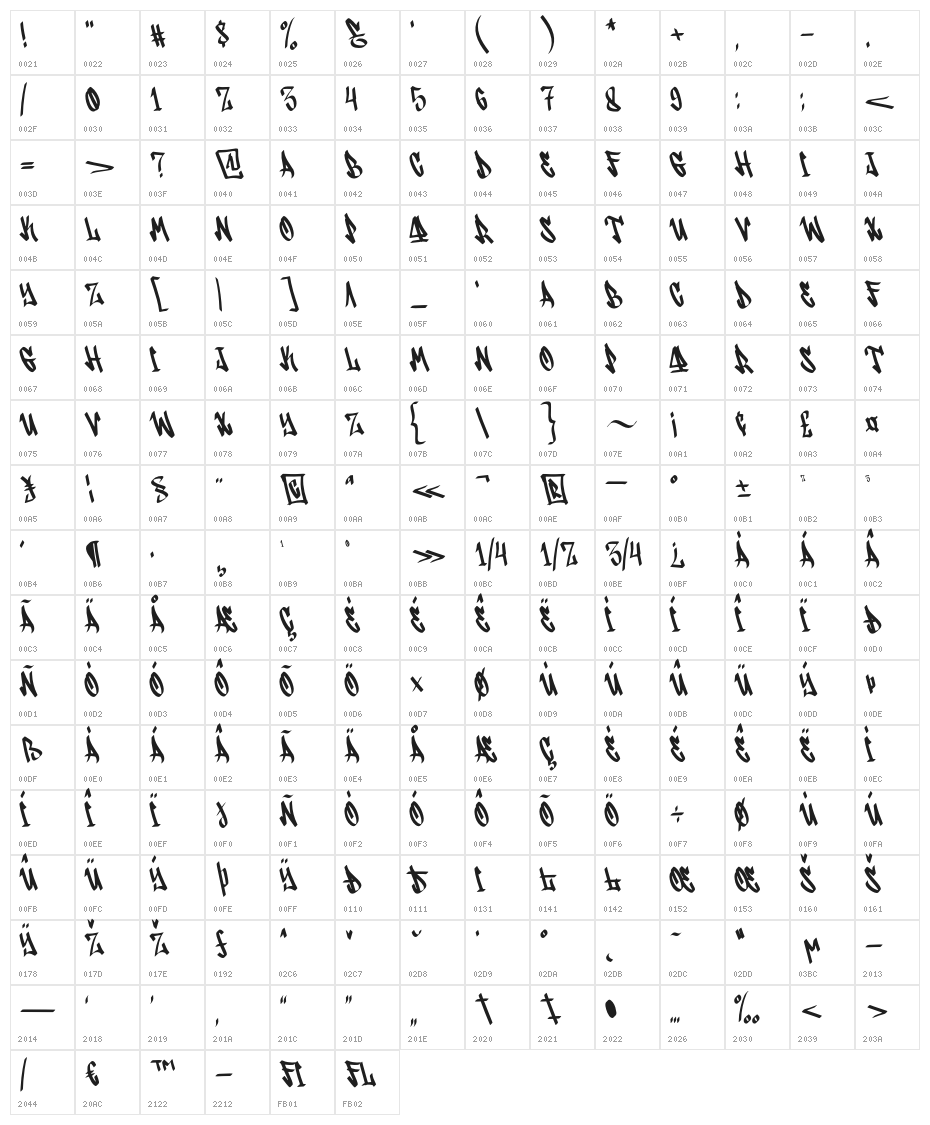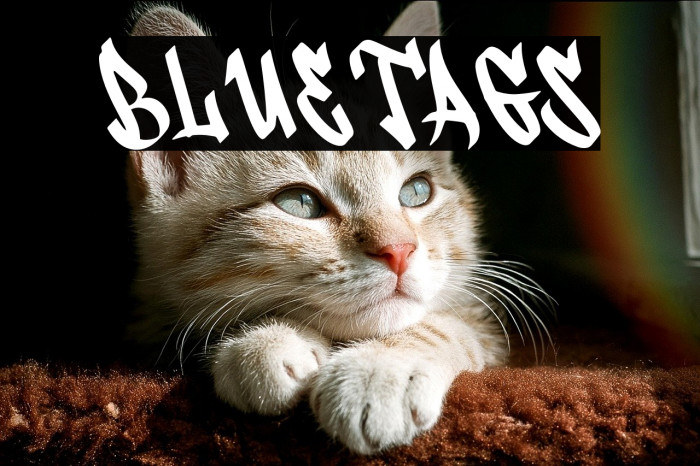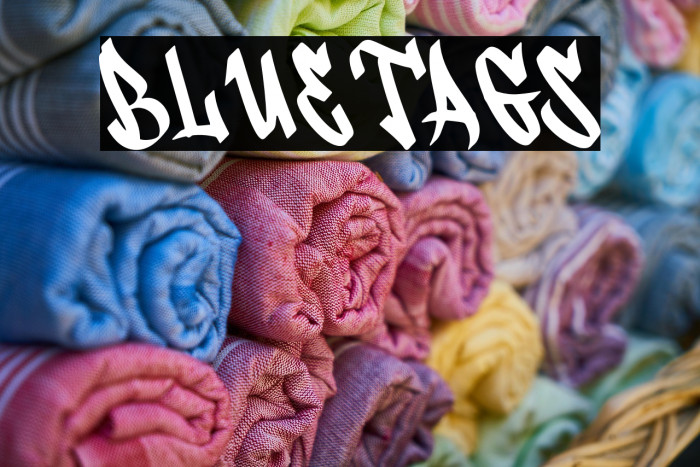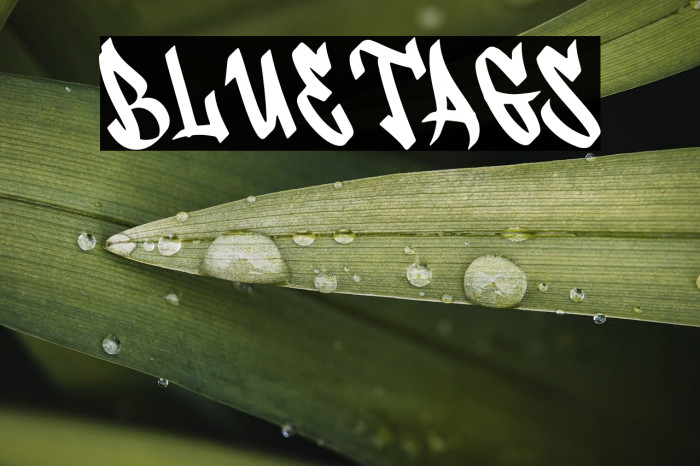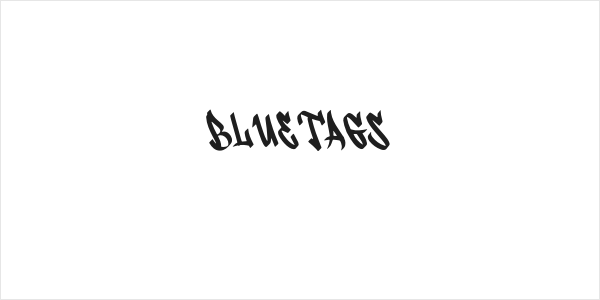
Bluetags Font
Bluetags Description
This font exhibits a bold and dynamic style, characterized by its sharp, angular edges and graffiti-inspired appearance. The uppercase and lowercase letters share a consistent aesthetic, with exaggerated curves and pointed terminals that give the font a rebellious and energetic feel. The numbers and special characters maintain this theme, ensuring a cohesive look across all glyphs. This font's unique style makes it stand out, capturing attention with its bold presence and artistic flair.
| Overall Style | Modern, Urban |
| Use Case | Logos, Posters, Album covers |
| Proposed Projects | Ideal for street art designs, urban-themed posters, edgy branding projects, and music album covers. |